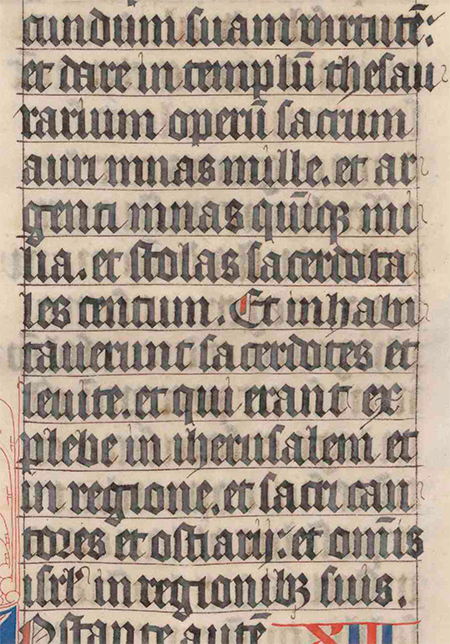
Thoughts on the modern long S
There's a lot of info online on how the long s (ſ) was used in past spelling, but not a lot about why it appears in the alternate forms it does, and what the expectations are today in modern type design if and when (rarely ever) its included or used.
I've linked a few samples below, including ligatures ( long s+small roman s, which is often mistaken for the Esszett) for reference (nb. the normal ff ligature is included in comparison to the ſſ ligature).
The alternation between Regular & Italic is of course the descender, which follows the same change as the lowercase 'f' between Regular & Italic.
The inconsistent aspect which I'm highly curious about, and for which no apparent explanation is available to me, is the left-hand bar which appears on some typefaces, and not on others, or features only in either the Italic or Regular of the given type.
What are your thoughts on these reasons? And on good design for the long s?
I don’t know much about the use and evolution of |ſ|, but my personal hypothesis about the left-pointing spur is something developed to indicate the x-height (thus the “lowercaseness” of the glyph), like the one on the |l| of the Romain du Roi.
As for the choice of omitting it, I think it spurs (!) from the need to better differentiate |ſ| from |f|, either by modern designers or already by their historical references.
my personal hypothesis about the left-pointing spur is something developed to indicate the x-height (thus the “lowercaseness” of the glyph)
It would certainly help the typesetter to avoid confusing it with the uppercase J, in either composition or dis'ing. With digital type, that problem doesn't present itself. My inclination is that without the spurs is superior for reading.
It's interesting how the Esszett is now distinguishing between a capital and lowercase by including/omitting the spur.
I'm still baffled why a long s would ever terminate at the baseline - it's not like earlier scribes didn't use descenders.
long s+small roman s, which is often mistaken for the Esszett
Well, there is no absolute distinction between the two. Especially when using roman letterforms, ſs stood in for a blackletter ß for a long time. It was very common in the 19th century and while it ended in Germany officially at the beginning of the 20th century with the introduction of a roman ß, it could be seen decades later. Here is an example of a school script from the 1950s which still listed it as option to learn:
The inconsistent aspect which I'm highly curious about, and for which no apparent explanation is available to me, is the left-hand bar which appears on some typefaces, and not on others
You can understand it as a relic of the way the letter was once written. Have a look at this example
See how the bulge forms sometimes? That’s why it both makes sense but also isn’t required.
I once also heard the interesting story that the horizontal bar represents the original design of the round s which the long s indeed is based on. Inside words it became compressed and elongated and so the bottom-left stroke of an s is still in the letter ſ as the horizontal bar on the right. It’s an interesting hypothesis, but I don’t take it as true so easily. For one, because just looking at the letters I posted above, the person writing this clearly did NOT write the ſ like an s.
For fonts today one can never go wrong with a »ſ« based on an f with a missing horizontal stroke just on the right side or altogether. One just has to decide if there are historical models to follow for the project or whether making ſ and f more distinguishable is more important.
I'm still baffled why a long s would ever terminate at the baseline - it's not like earlier scribes didn't use descenders.
Not sure why this is baffling. It’s the same situation as with f vs. f
it's not like earlier scribes didn't use descenders.
Ah, I meant there was nothing prohibiting scribes from writing the s in a manner which exhibits the serpentine quality found in the upper and lower S, or the italic long S which makes use of a descender. The long s would've have retained resemblance if it had used a descender, as done so in the first italic scripts such as found in Arrighi's Operina. I can't find any explanation for the first italic long s.
The compression is an interesting hypothesis, but highly problematic. The example you provided is a Textura, so here is an example of a Rotunda which includes ſ, f and s. So the spur definitely pre-dates the Romain du Roi. I was imagining for a while that the compression hypothesis may be plausible for pre-Gothic scripts (re pre-Gothic scripts, I have no knowledge!), but then again it is odd that the S would be compressed, since many other letters do not suffer from compression, but the s does. That, and I can't recall ever seeing a vellum manuscript which has compressed writing. Even Textura, despite its compressed appearance, is a generous script to write in.
It's interesting how the Esszett is now distinguishing between a capital and lowercase by including/omitting the spur.
While some fonts do use the spur to differenciate between a ß and a ẞ, the usual & proper difference would be the round (lowercase) versus sharp (uppercase) top-right part of the letter, as one can see over here.